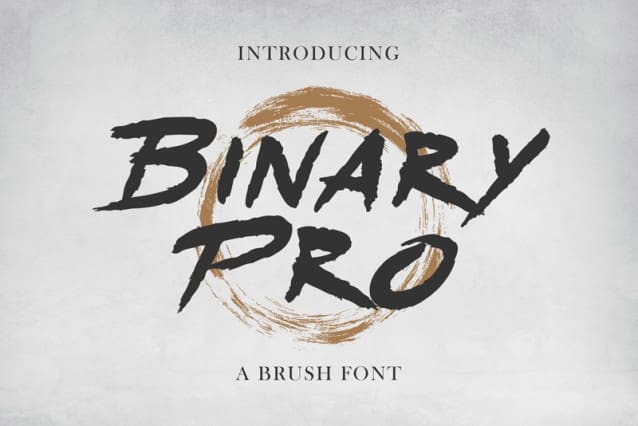
Binary Brush Font
Binary Brush Font, inspired by brush lettering-style typography. This font is perfect for a design that makes it more attractive and playful. It was made with a very good level of aesthetics, making this font suitable for a book cover, poster, packaging, merchandise, logotype, and much more.